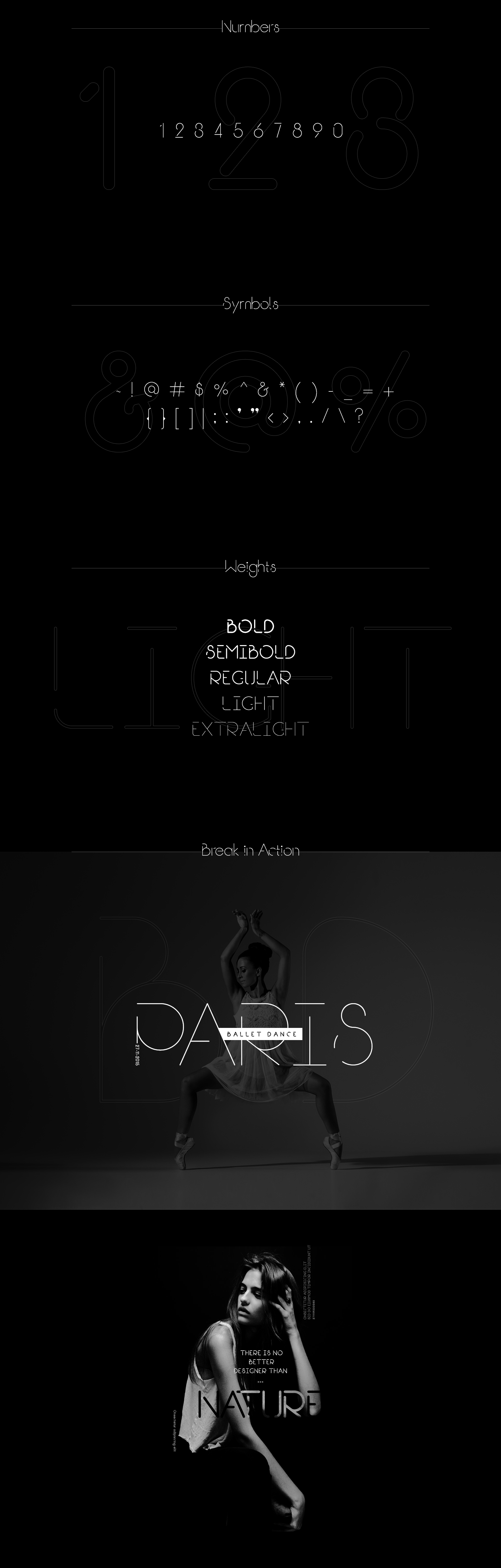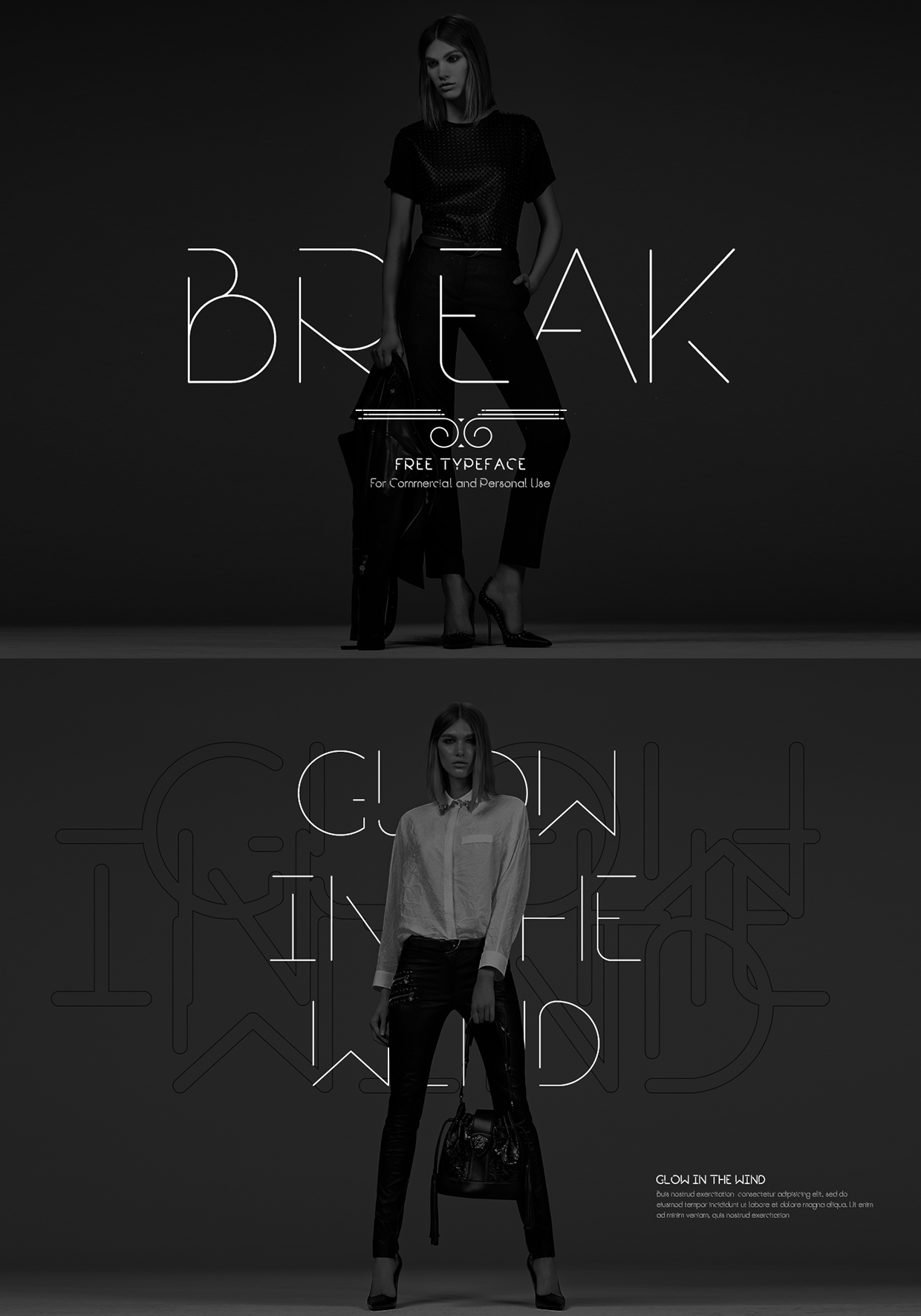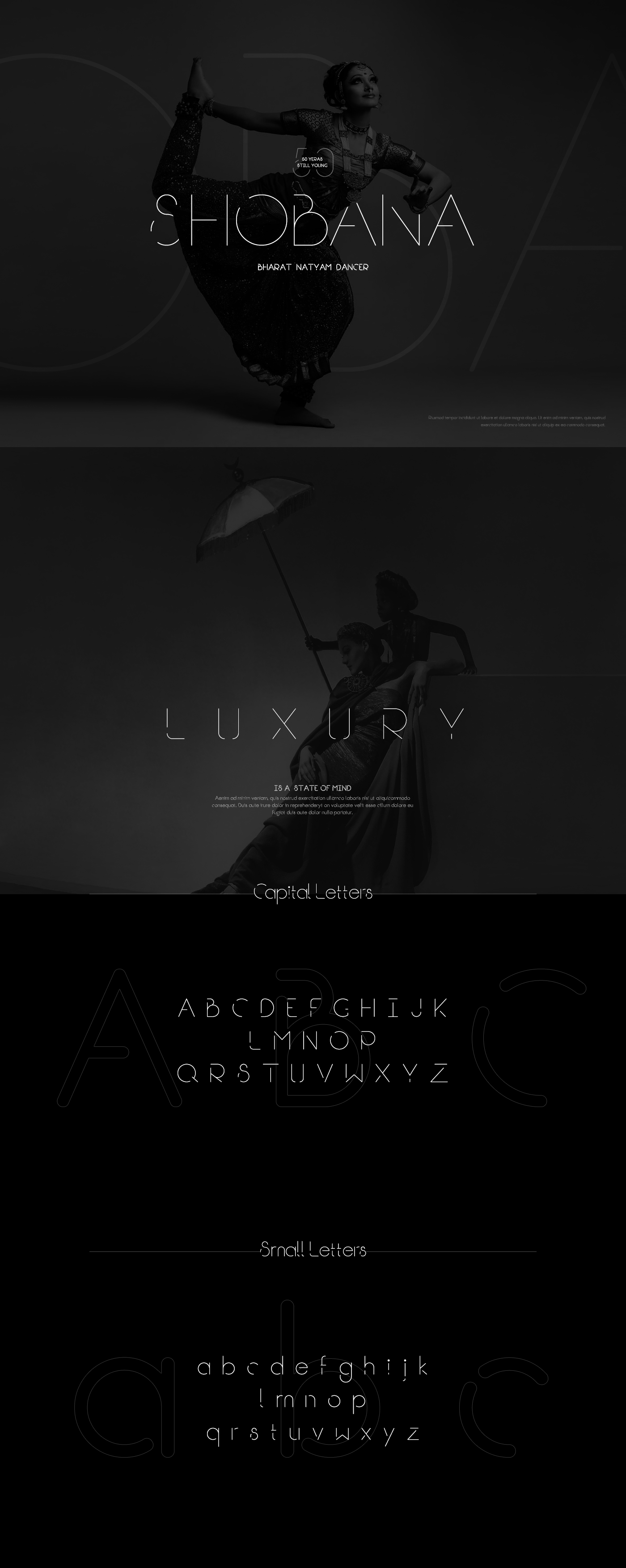
Modern free font - Give your old fonts a break!
Try Break - A modern free font that will make your designs look modern and in tandem with the latest design trends.
Choosing the right font for a design is one of the primary factors that affect the overall design.
If you continue using the same fonts over and over, then the freshness in the designs is lost.
But with Break's fresh style, you can create gorgeous text and can highlight your tagline the modern way.
Break font is available in 5 weights:
- bold
- semibold
- regular
- light
- extra light
It contains uppercase, lowercase, numeric, and symbols and can be used in a wide range of projects for fashion, luxury, advertising, and other related industries.
Extremely Gorgeous. Typo Artwork With Photo And Gradient. - Rohit Bhanage
Your font looks amazing but what I really love is your presentation of it...The presentation boosts the quality of the font, and not to mention it demonstrates how intuitive the font can be when used in a manner such as this. - Oryan Semprie
Love the clean lines, the abstraction and the fact it is still easy to read.